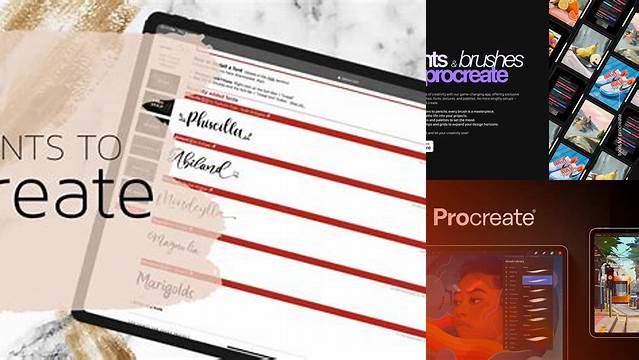
Free Fonts For Procreate: Unleash Your Creativity
Hey guys! Ready to take your Procreate artwork to the next level? One of the coolest ways to do that is by using awesome fonts. And guess what? You don't have to break the bank to get them! Let's dive into the world of free fonts for Procreate and how you can use them to make your creations pop. Using the right font can totally transform your digital art, adding personality, clarity, and that professional touch. Whether you're designing logos, creating stunning typography pieces, or just adding text to your illustrations, having a variety of fonts at your fingertips is a game-changer. So, buckle up, and let's explore where to find these free treasures and how to install them in Procreate. Get ready to unleash your creativity without spending a dime!
Finding the Best Free Fonts for Procreate
Finding free fonts for Procreate that are both high-quality and suitable for your projects can sometimes feel like searching for a needle in a haystack. But don't worry, there are tons of resources available to help you out! Websites like Dafont, Google Fonts, and FontSpace are goldmines for free fonts. Dafont, for example, offers a huge selection of fonts, ranging from quirky and playful to elegant and professional. Google Fonts is great because the fonts are specifically designed for readability on screens, making them perfect for digital art. FontSpace is another excellent option, with a community-driven approach that ensures you'll find unique and interesting fonts. When browsing these sites, make sure to check the licensing information for each font. Most free fonts come with a personal use license, but if you plan to use them commercially, you'll need to ensure the license allows it. Also, read reviews or test the font before downloading to make sure it's compatible with Procreate and meets your quality expectations. Happy hunting, font enthusiasts!
Best Font Styles for Digital Art in Procreate
The best font styles for your digital art in Procreate really depend on the vibe you're going for! If you're creating something playful and fun, handwritten or script fonts can add a personal touch. Think about fonts that mimic calligraphy or have a whimsical feel. On the other hand, if you're designing something more professional or corporate, sans-serif fonts like Helvetica or Arial are great choices. They're clean, modern, and easy to read. For projects that need a bit of elegance, serif fonts like Times New Roman or Garamond can add a touch of sophistication. These fonts have small decorative strokes (serifs) at the ends of the letters, giving them a classic look. Experiment with different font styles to see what works best for your project. Don't be afraid to mix and match fonts to create interesting visual effects. Just make sure the fonts you choose complement each other and enhance the overall design. Ultimately, the best font style is the one that helps you achieve your artistic vision.
Combining Fonts for Impactful Designs in Procreate
Combining fonts effectively is an art in itself! When you're working with free fonts for Procreate, knowing how to pair them can make a huge difference. A good rule of thumb is to choose one dominant font and one or two accent fonts. The dominant font should be used for the main text or headings, while the accent fonts can be used for subheadings, captions, or other smaller text elements. Try to create contrast between the fonts. For example, you could pair a bold sans-serif font with a delicate script font. Or, you could combine a serif font with a sans-serif font to create a balanced look. Avoid using too many fonts in one design, as this can make it look cluttered and confusing. Stick to a maximum of three fonts to keep things clean and cohesive. Also, pay attention to the spacing and alignment of the text. Make sure the text is easy to read and visually appealing. Experiment with different combinations until you find something that works well for your project. With a little practice, you'll become a font-pairing pro in no time!
Creating Typography Art with Free Procreate Fonts
Typography art is where free Procreate fonts really shine! It's all about using fonts to create visually stunning compositions. Start by choosing a quote, phrase, or word that you want to focus on. Then, select a font that reflects the meaning and tone of the text. Experiment with different font sizes, styles, and colors to create visual interest. You can also add decorative elements like lines, shapes, or illustrations to enhance the design. Play around with the layout of the text. Try arranging the words in different ways to create a unique and eye-catching composition. Consider using different fonts for different words or phrases to add emphasis. You can also use kerning and tracking to adjust the spacing between letters and words. Don't be afraid to get creative and experiment with different techniques. Typography art is all about expressing yourself through fonts, so have fun and let your imagination run wild!
Free Procreate Fonts for Logos and Branding
If you're designing logos or branding materials in Procreate, choosing the right font is crucial. Your font will be a key part of your brand identity, so it needs to be both visually appealing and representative of your brand's values. For logos, you'll want to choose a font that is unique, memorable, and easy to read. Consider using a custom font or modifying an existing font to create something truly original. For branding materials like business cards, website headers, and social media graphics, you'll want to choose fonts that are consistent with your logo. Use the same font or a complementary font to maintain a cohesive brand identity. Sans-serif fonts are often a good choice for logos and branding, as they are clean, modern, and versatile. However, you can also use serif fonts or script fonts, depending on the style of your brand. Just make sure the fonts you choose are legible and work well in different sizes and contexts. Remember, your font is a reflection of your brand, so choose wisely!
Mastering Text Effects with Free Fonts in Procreate
One of the coolest things about using free fonts for Procreate is that you can apply all sorts of awesome text effects! Procreate has a bunch of built-in tools that let you add shadows, outlines, gradients, and more to your text. To add a shadow, select the text layer and go to the Adjustments menu. Choose "Gaussian Blur" and adjust the blur amount to create a soft shadow effect. You can also change the color of the shadow to make it more dramatic. To add an outline, duplicate the text layer and change the color of the duplicate layer to the desired outline color. Then, use the Selection tool to slightly offset the duplicate layer, creating an outline effect. To add a gradient, create a new layer above the text layer and use the Gradient tool to create a gradient. Then, clip the gradient layer to the text layer to apply the gradient to the text. Experiment with different effects and settings to create unique and eye-catching text designs. The possibilities are endless!
Free Calligraphy Fonts for Procreate: A Beginner's Guide
Calligraphy fonts can add a touch of elegance and sophistication to your Procreate projects. If you're new to calligraphy, don't worry – there are plenty of free Procreate fonts that can help you get started. Look for fonts that mimic the look of hand-lettered calligraphy, with flowing lines and graceful curves. Script fonts are often a good choice for calligraphy, but you can also find dedicated calligraphy fonts that are specifically designed for this purpose. When using calligraphy fonts, pay attention to the spacing between letters and words. Calligraphy often has wider spacing than other fonts, so you may need to adjust the kerning and tracking to get it just right. Experiment with different brush sizes and colors to create different effects. You can also add decorative elements like flourishes and swashes to enhance the calligraphy. With a little practice, you'll be creating beautiful calligraphy designs in no time!
Using Free Serif Fonts in Procreate for a Classic Look
Serif fonts are characterized by the small decorative strokes (serifs) at the ends of the letters. They're often used to add a touch of elegance, formality, or tradition to designs. In Procreate, using free serif fonts can give your work a classic and timeless look. Some popular serif fonts include Times New Roman, Garamond, and Georgia. These fonts are widely available and are often included in default font libraries. When using serif fonts, consider the overall tone and style of your project. Serif fonts are well-suited for projects that require a sense of sophistication or history. They can also be used to create a contrast with more modern elements in your design. Experiment with different font sizes, weights, and colors to achieve the desired effect. Serif fonts can be particularly effective when used for headings or body text in Procreate projects.
Free Sans-Serif Fonts in Procreate for Modern Designs
Sans-serif fonts are characterized by the absence of serifs, the small decorative strokes at the ends of letters. This gives them a cleaner, more modern look compared to serif fonts. Using free sans-serif fonts in Procreate is a great way to achieve a contemporary and minimalist aesthetic in your designs. Some popular sans-serif fonts include Arial, Helvetica, and Open Sans. These fonts are widely used in digital design due to their readability and versatility. Sans-serif fonts are well-suited for projects that require a clean and uncluttered look. They work well for logos, websites, and other digital media. When using sans-serif fonts, consider the overall visual hierarchy of your design. Use different font weights and sizes to create contrast and guide the viewer's eye. Sans-serif fonts can be particularly effective when paired with bold colors and geometric shapes in Procreate projects.
Handwritten Fonts for Procreate: Adding a Personal Touch
Handwritten fonts are designed to mimic the look of handwriting, adding a personal and informal touch to your Procreate designs. These fonts can range from elegant scripts to playful doodles, offering a wide variety of styles to choose from. When using free handwritten fonts for Procreate, consider the overall tone of your project. Handwritten fonts are well-suited for projects that require a sense of warmth, authenticity, or creativity. They can be used for invitations, greeting cards, social media graphics, and more. Experiment with different handwritten fonts to find one that matches your personal style and the message you want to convey. Pay attention to the legibility of the font. Some handwritten fonts can be difficult to read, especially in smaller sizes. Choose a font that is both visually appealing and easy to understand. Handwritten fonts can be particularly effective when combined with illustrations or other hand-drawn elements in Procreate projects.
Script Fonts for Procreate: Elegance and Flair
Script fonts are designed to resemble cursive handwriting, adding a touch of elegance and flair to your Procreate designs. These fonts are often used for invitations, wedding announcements, logos, and other projects that require a sense of sophistication. When using free script fonts for Procreate, consider the overall formality of your project. Some script fonts are more formal than others, so choose one that matches the occasion. Pay attention to the spacing between letters. Script fonts often have intricate letterforms that require careful spacing to maintain legibility. Experiment with different colors and sizes to create visual interest. Script fonts can be particularly effective when used sparingly, as they can be overwhelming if overused. Consider using a script font for headings or titles, and a simpler font for body text. Script fonts can be beautifully combined with other design elements to create a cohesive and visually stunning Procreate project.
Vintage Fonts for Procreate: Retro Design Vibes
Vintage fonts evoke the styles of past eras, adding a retro or nostalgic feel to your Procreate designs. These fonts can range from ornate Victorian-era fonts to bold Art Deco styles, offering a wide variety of options for creating vintage-inspired artwork. When using free vintage fonts for Procreate, consider the specific era you want to emulate. Research fonts that were popular during that time period and choose one that matches the aesthetic you're going for. Vintage fonts often have unique characteristics, such as distressed textures, decorative elements, and unusual letterforms. Pay attention to these details and use them to enhance the vintage feel of your design. Experiment with different color palettes and textures to create a cohesive vintage look. Vintage fonts can be particularly effective when used for posters, logos, and other designs that aim to capture the charm of a bygone era.
Modern Fonts for Procreate: Sleek and Contemporary
Modern fonts are characterized by their clean lines, geometric shapes, and minimalist design. These fonts are often used to create sleek and contemporary designs in Procreate. When using free modern fonts for Procreate, consider the overall simplicity of your project. Modern fonts are well-suited for designs that emphasize clarity and functionality. Choose fonts that are easy to read and visually appealing. Pay attention to the kerning and tracking of the font. Modern fonts often have precise spacing that contributes to their clean look. Experiment with different font weights and sizes to create visual hierarchy and interest. Modern fonts can be particularly effective when used for logos, websites, and other digital media. They pair well with bold colors, geometric shapes, and minimalist layouts.
Display Fonts for Procreate: Making a Statement
Display fonts are designed to be eye-catching and attention-grabbing, making them ideal for headlines, titles, and other prominent design elements in Procreate. These fonts often have unique and unusual letterforms that set them apart from more traditional fonts. When using free display fonts for Procreate, consider the overall impact you want to create. Display fonts are best used sparingly, as they can be overwhelming if overused. Choose a font that reflects the tone and style of your project. A playful display font might be suitable for a children's book, while a bold and impactful display font might be better for a movie poster. Experiment with different colors, sizes, and effects to enhance the visual appeal of the display font. Display fonts can be particularly effective when combined with simpler fonts for body text, creating a balanced and visually engaging design.
Retro Fonts for Procreate: Throwback Styles
Retro fonts are inspired by the design trends of the past, adding a nostalgic and vintage feel to your Procreate creations. These fonts can evoke different eras, from the groovy 1970s to the vibrant 1980s, each with its unique typographic style. When using free retro fonts for Procreate, think about the specific decade or style you want to capture. Research fonts that were popular during that time and incorporate them into your project. Retro fonts often feature bold shapes, unique serifs, and distinctive letterforms that make them stand out. Experiment with color palettes, textures, and graphics that complement the retro aesthetic. Retro fonts can be perfect for posters, album covers, and any design that aims to bring back the charm and character of the past.
Grunge Fonts for Procreate: Edgy and Distressed
Grunge fonts bring an edgy, raw, and distressed look to your Procreate designs. These fonts often feature rough textures, irregular shapes, and a worn-out appearance, giving your artwork a rebellious and unconventional vibe. When using free grunge fonts for Procreate, consider the overall mood and message you want to convey. Grunge fonts can be excellent for designs that need a gritty or urban feel. They work well for posters, flyers, and artwork that embraces a non-conformist style. Experiment with blending modes, textures, and effects to enhance the distressed look of the font. Grunge fonts can be paired with other elements like splatters, scratches, and distressed images to create a cohesive and impactful design.
Pixel Fonts for Procreate: 8-Bit Nostalgia
Pixel fonts, also known as 8-bit fonts, are inspired by the early days of video games and computer graphics. These fonts feature blocky, pixelated letterforms that evoke a sense of nostalgia and retro gaming culture. When using free pixel fonts for Procreate, think about the specific project and the message you want to convey. Pixel fonts can be perfect for designs related to gaming, technology, or anything that embraces a vintage digital aesthetic. Experiment with colors and backgrounds that complement the pixelated style. Pixel fonts can be used for logos, titles, and other design elements that need a unique and eye-catching look. They can also be combined with other retro elements like pixel art and chiptune music to create a complete 8-bit experience.
Brush Fonts for Procreate: Natural and Hand-Painted
Brush fonts mimic the look of hand-painted lettering, adding a natural, organic, and artistic touch to your Procreate designs. These fonts often feature textured strokes, varied line widths, and a sense of movement that emulates the feel of real brushstrokes. When using free brush fonts for Procreate, consider the overall style and message of your project. Brush fonts are well-suited for designs that require a personal and handcrafted feel. They can be used for logos, invitations, posters, and any artwork that celebrates creativity and individuality. Experiment with colors, textures, and effects to enhance the hand-painted look of the font. Brush fonts can be combined with illustrations, watercolor effects, and other artistic elements to create a cohesive and visually stunning design.
Outline Fonts for Procreate: Clean and Minimalist
Outline fonts feature a design where the letterforms are represented by their outlines, creating a clean, minimalist, and modern look. These fonts can be used in a variety of design contexts, from logos and headlines to posters and digital artwork. When using free outline fonts for Procreate, consider the overall aesthetic you want to achieve. Outline fonts are great for designs that need a sleek and contemporary feel. Experiment with different line weights and colors to customize the look of the font. Outline fonts can be paired with bold backgrounds, geometric shapes, and other minimalist elements to create a visually striking composition. They can also be used to create interesting text effects, such as layering or filling the outlines with patterns or textures.
Bubble Fonts for Procreate: Fun and Playful
Bubble fonts are characterized by their rounded, inflated shapes, giving them a fun, playful, and whimsical appearance. These fonts are perfect for designs that target children, or for projects that aim to evoke a sense of joy and lightheartedness. When using free bubble fonts for Procreate, consider the overall tone and message of your design. Bubble fonts are well-suited for projects that need a friendly and approachable feel. They can be used for invitations, posters, and any artwork that celebrates fun and creativity. Experiment with bright colors and bubbly backgrounds to enhance the playful look of the font. Bubble fonts can be combined with illustrations, cartoons, and other whimsical elements to create a cohesive and engaging design.
Geometric Fonts for Procreate: Precision and Structure
Geometric fonts are based on precise geometric shapes like circles, squares, and triangles, giving them a structured, modern, and mathematical appearance. These fonts are often used in designs that need a sense of order, precision, and clarity. When using free geometric fonts for Procreate, consider the overall aesthetic you want to achieve. Geometric fonts are great for designs that need a clean and contemporary feel. Experiment with different weights and sizes to create visual hierarchy and interest. Geometric fonts can be paired with minimalist layouts, abstract shapes, and bold colors to create a visually striking composition. They can also be used for logos, branding, and other design elements that need a sense of sophistication and precision.
Distorted Fonts for Procreate: Unique and Experimental
Distorted fonts break away from traditional letterforms, featuring irregular shapes, skewed lines, and unconventional designs. These fonts add a unique, experimental, and edgy touch to your Procreate projects. When using free distorted fonts for Procreate, consider the overall message and mood you want to convey. Distorted fonts are perfect for designs that aim to be unconventional and stand out. They can be used for posters, album covers, and artwork that embraces a non-conformist style. Experiment with blending modes, textures, and effects to enhance the distorted look of the font. Distorted fonts can be paired with other experimental elements like glitch art, abstract shapes, and unconventional layouts to create a cohesive and impactful design.
Layering Fonts in Procreate for Depth
Layering fonts is a technique where you stack multiple font layers on top of each other to create depth, texture, and visual interest in your Procreate designs. This technique can add a unique and professional touch to your typography. When layering free fonts for Procreate, start by choosing two or three fonts that complement each other. A common approach is to use a bold font for the base layer and a lighter or more decorative font for the top layer. Adjust the size, color, and position of each layer to create the desired effect. Experiment with blending modes, shadows, and outlines to further enhance the layered look. Layering fonts can be used for headlines, logos, and other design elements that need to stand out. It’s a great way to add dimension and personality to your typographic creations.
Kerning and Tracking with Free Fonts in Procreate
Kerning and tracking are essential typographic adjustments that control the spacing between letters in your Procreate designs. Kerning adjusts the space between individual letter pairs to improve readability and visual appeal. Tracking, also known as letter-spacing, adjusts the overall spacing between all letters in a word or phrase. When working with free fonts for Procreate, pay close attention to kerning and tracking to ensure your text looks polished and professional. Adjust kerning to create even spacing between letter pairs that appear too close or too far apart. Adjust tracking to increase or decrease the overall density of the text. Proper kerning and tracking can significantly improve the readability and visual impact of your typography. Experiment with different settings to find the optimal balance for each font and design.
Color and Gradients with Free Fonts in Procreate
Adding color and gradients to your free fonts for Procreate can dramatically enhance their visual appeal and impact. Procreate offers a wide range of tools for customizing the color and gradients of your text. Start by selecting the text layer and choosing a color from the color palette. You can use solid colors, gradients, or even patterns to fill the text. To create a gradient, use the gradient tool and choose the colors you want to blend. You can create linear, radial, or angular gradients to add depth and dimension to your text. Experiment with different color combinations and gradient styles to find the perfect look for your design. Using color and gradients effectively can make your typography more engaging and visually stunning.
Shadows and Outlines for Free Procreate Fonts
Adding shadows and outlines to your free Procreate fonts is a simple yet effective way to make them stand out and add depth to your designs. Procreate offers easy-to-use tools for creating shadows and outlines. To add a shadow, duplicate the text layer and apply a Gaussian blur to the duplicate layer. Adjust the color, opacity, and offset of the shadow to create the desired effect. To add an outline, duplicate the text layer and change the color of the duplicate layer to the outline color. Then, use the selection tool to slightly expand the duplicate layer, creating an outline around the original text. Experiment with different colors, sizes, and blur amounts to create a variety of shadow and outline styles. Shadows and outlines can be used to make your text more readable, create visual interest, and add a professional touch to your designs.
Exporting Your Procreate Art with Free Fonts
Once you've finished creating your Procreate art with free fonts, it's time to export it in the best format for your needs. Procreate offers several export options, each with its own advantages and disadvantages. For high-quality images, PNG is a good choice, as it supports transparency and lossless compression. For smaller file sizes, JPEG is a better option, but it uses lossy compression, which can reduce image quality. If you want to preserve the layers in your artwork, export it as a Procreate file (.procreate). This allows you to open and edit the file in Procreate later on. When exporting, consider the intended use of the artwork. For web use, a lower resolution may be sufficient, while for print use, a higher resolution is recommended. Choose the export settings that best balance image quality and file size.
Troubleshooting Font Issues in Procreate
Sometimes, you might encounter issues with free fonts for Procreate, such as fonts not appearing in the font list or displaying incorrectly. Here are some troubleshooting tips to help you resolve these issues. First, make sure the font is properly installed on your iPad. Check the iFont app to ensure the configuration profile is installed and enabled. If the font still doesn't appear in Procreate, try restarting the app or your iPad. Sometimes, a simple restart can resolve font-related issues. If the font displays incorrectly, it could be due to compatibility issues. Try using a different font or updating Procreate to the latest version. If you're still experiencing problems, consult the Procreate support forums or contact Apple support for assistance. With a little troubleshooting, you can usually resolve most font issues and get back to creating beautiful art.